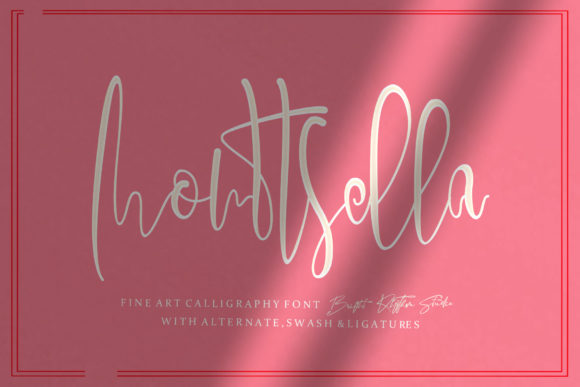
Monttsella
The first time I saw Monttsella, it felt like a whisper of elegance in a world of bold statements. It carries a quiet confidence, a refined charm that doesn’t shout but invites you to lean in. The letterforms are fluid yet structured, with a subtle flourish that suggests both artistry and purpose. This isn’t a font for the impatient or the overly dramatic—it’s for those who appreciate subtlety and want their message to resonate with sophistication.
Monttsella is a display font with a distinct personality. Its curves are smooth and deliberate, giving it a sense of motion that feels natural rather than forced. The contrast between thick and thin strokes adds depth without overwhelming the eye. It has a modern feel, yet its origins are rooted in classic script traditions, making it versatile enough to fit into a variety of design contexts. Whether used as a headline or an accent, Monttsella brings a level of refinement that elevates any project.
In real-life applications, Monttsella shines in areas where visual storytelling matters. For logo design, it offers a unique identity that stands out while maintaining readability. It’s especially effective for brands that want to convey a sense of luxury, creativity, or personal touch. When paired with a sans serif or serif font, Monttsella can create a balanced hierarchy that guides the viewer’s attention naturally.
For brand identity, Monttsella can be a powerful tool. It works well as a primary font for logos, taglines, and brand marks. However, it’s important to consider how it interacts with other elements of the brand. A premium font like Monttsella should complement rather than overshadow the overall design language. It’s not just about aesthetics—it’s about creating a cohesive visual narrative that resonates with the target audience.
In packaging design, Monttsella can add a touch of elegance. It’s ideal for high-end products or creative goods where the typography plays a key role in the overall aesthetic. When used on product labels, it can make a statement without being too flashy. However, care must be taken with small text sizes, as the intricate details may become less legible at lower resolutions.
Monttsella also performs well in editorial design and web design. Its clean lines and thoughtful spacing make it suitable for headers, subheadings, and even body text when used sparingly. It’s worth testing in black and white to ensure it maintains clarity and impact. In social media graphics, Monttsella can add a stylish flair, but it should be used carefully—too much can distract from the content itself.
When it comes to digital ads and printable products, Monttsella offers a reliable performance. It looks great in both digital and physical formats, making it a versatile choice for designers working across multiple platforms. For Canva templates and Cricut projects, Monttsella can bring a professional touch to DIY creations, especially when paired with other fonts for better balance.
However, there are situations where Monttsella should be used with caution. Large headlines or short phrases can benefit from its expressive nature, but it’s not always the best choice for long-form text. Supporting text or body copy should typically avoid this font unless the design is intentionally stylized. Similarly, brand marks or quotes that require a more formal tone might find Monttsella too playful or decorative.
Readability is a key factor to consider. While Monttsella is visually appealing, it’s not the most readable font for dense text. Testing it at smaller sizes is essential to ensure it remains clear and legible. Comparing it to other typefaces—such as a serif font for contrast or a sans serif for balance—can help determine its best use cases.
As a designer, I’ve found that Monttsella is best used as a complementary font rather than a standalone solution. It pairs well with modern typography styles, especially when used alongside a neutral sans serif or a bold serif. This creates a dynamic contrast that enhances visual interest without sacrificing clarity.
In summary, Monttsella is a creative font that brings a unique visual personality to a wide range of design projects. It’s a premium font that deserves thoughtful consideration in the context of brand identity, editorial design, and packaging. With the right pairing and careful application, it can elevate the visual mood and enhance audience engagement. But like any creative font, it requires a discerning eye and a clear understanding of its strengths and limitations.